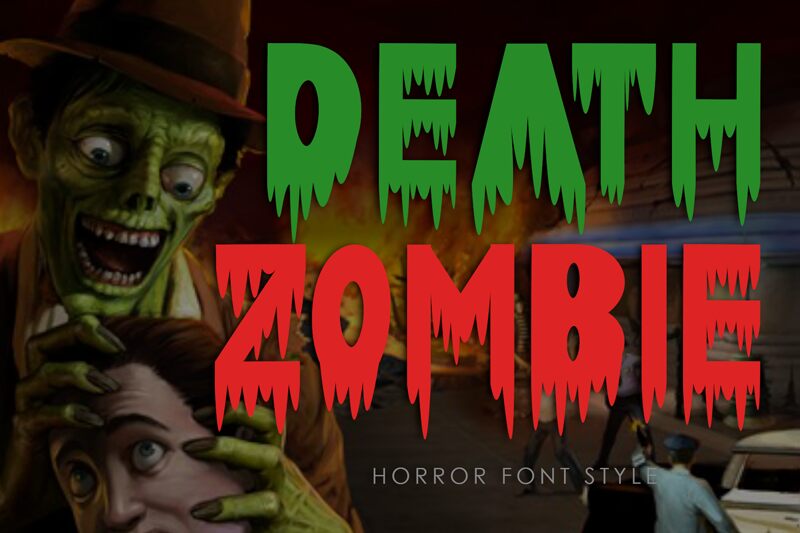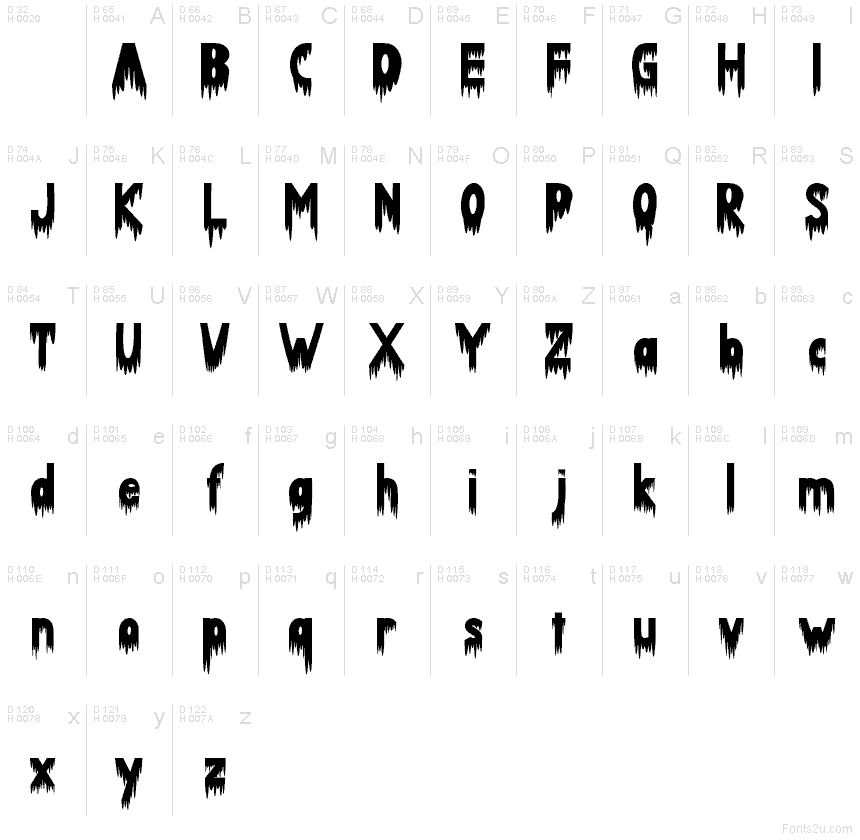
Death Zombie
Death Zombie font by Yoga Letter is a free Halloween display font that leans into ooze and grit. Each letter drips like black candle wax, with ragged edges and irregular bottoms that feel freshly clawed. The heavy, inky weight reads loud from a distance while the melting contours add just enough chaos to sell the scare.
Using Death Zombie, you can shout “boo” across haunted house flyers, party invitations, escape room signage, trick-or-treat posters, horror game thumbnails, and seasonal social promos. This free font shines at big sizes; keep body text clean by pairing it with a plain, condensed sans. One headline, a short subhead, and you’ve got instant spooky drama.